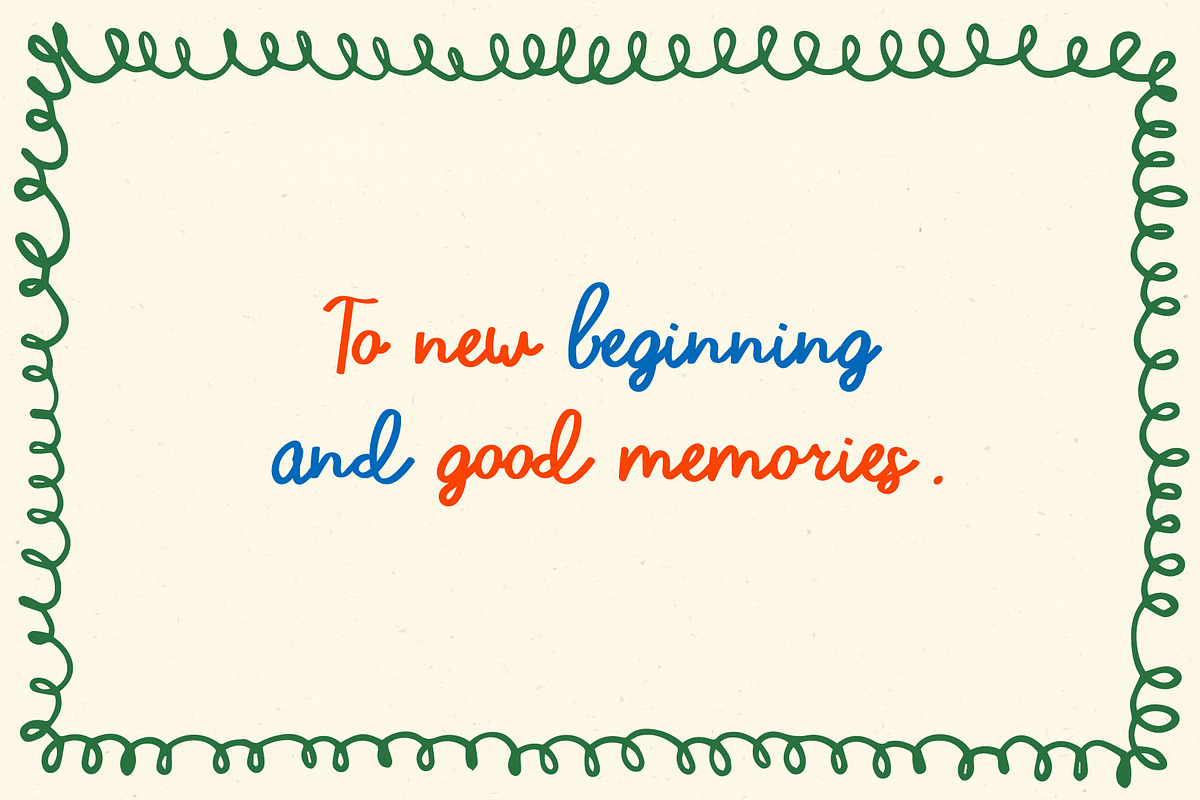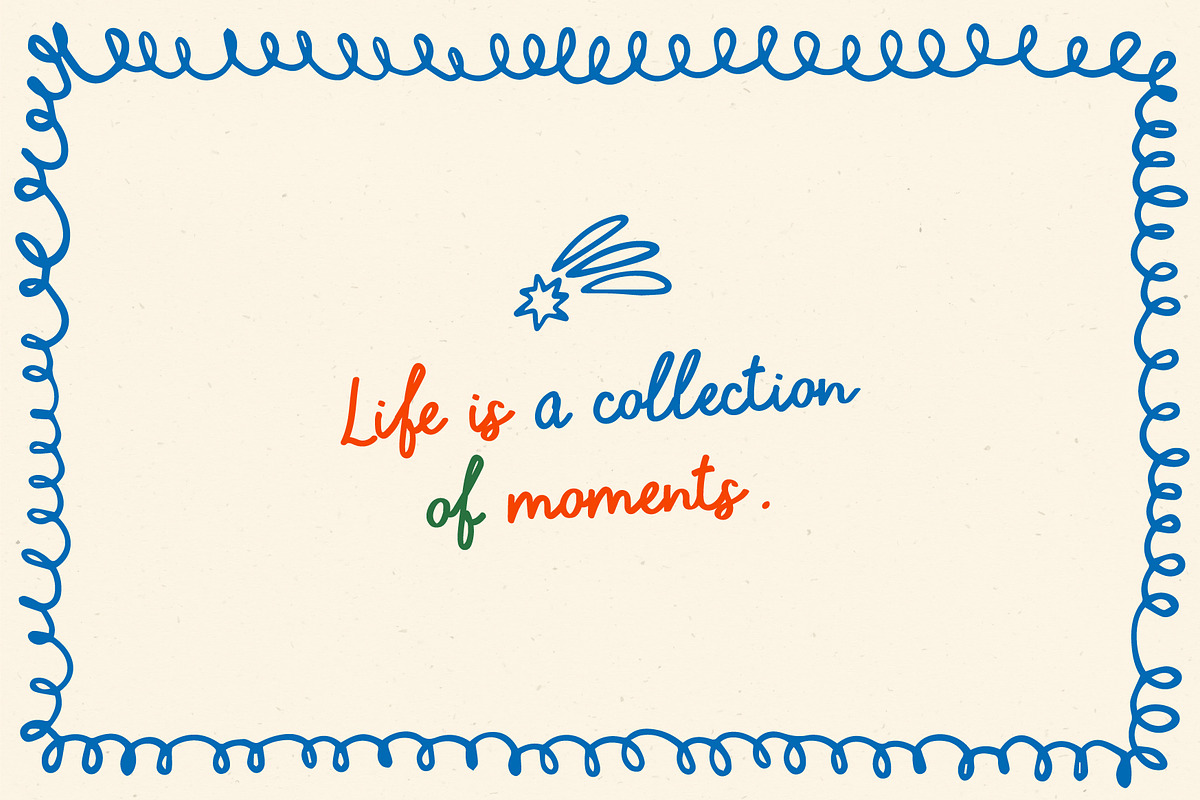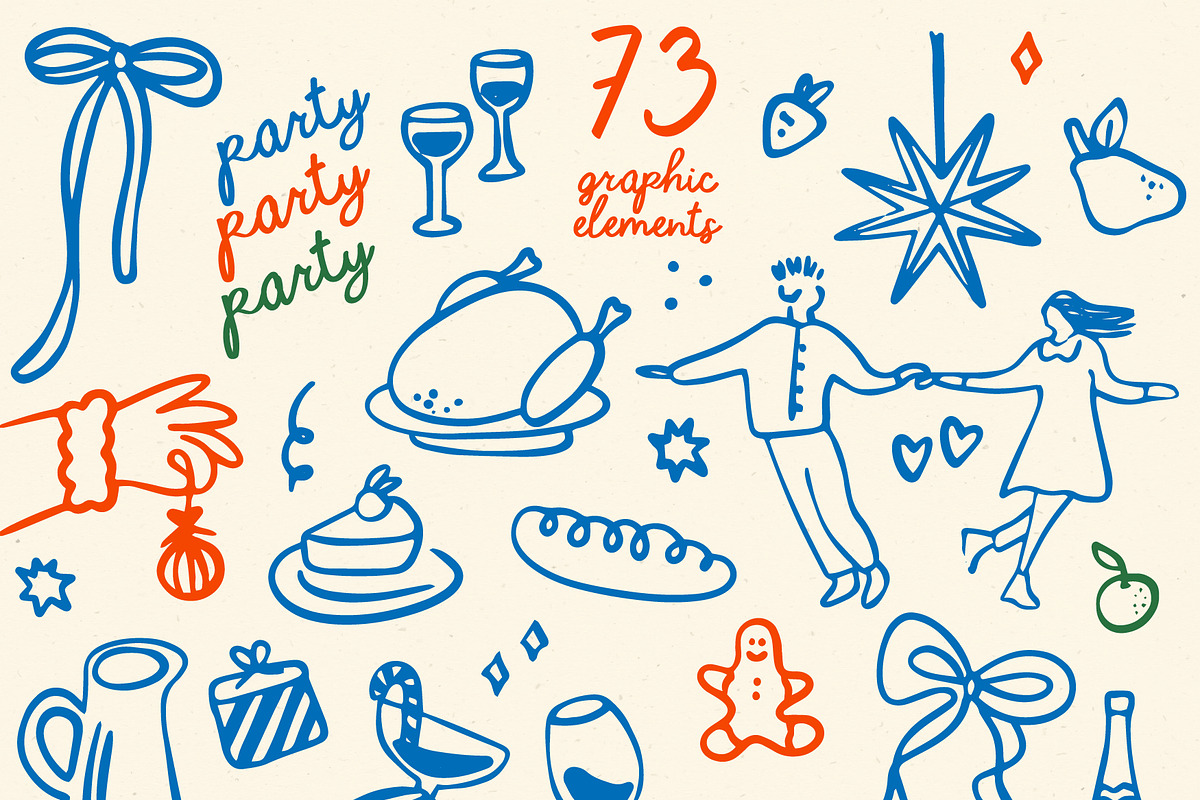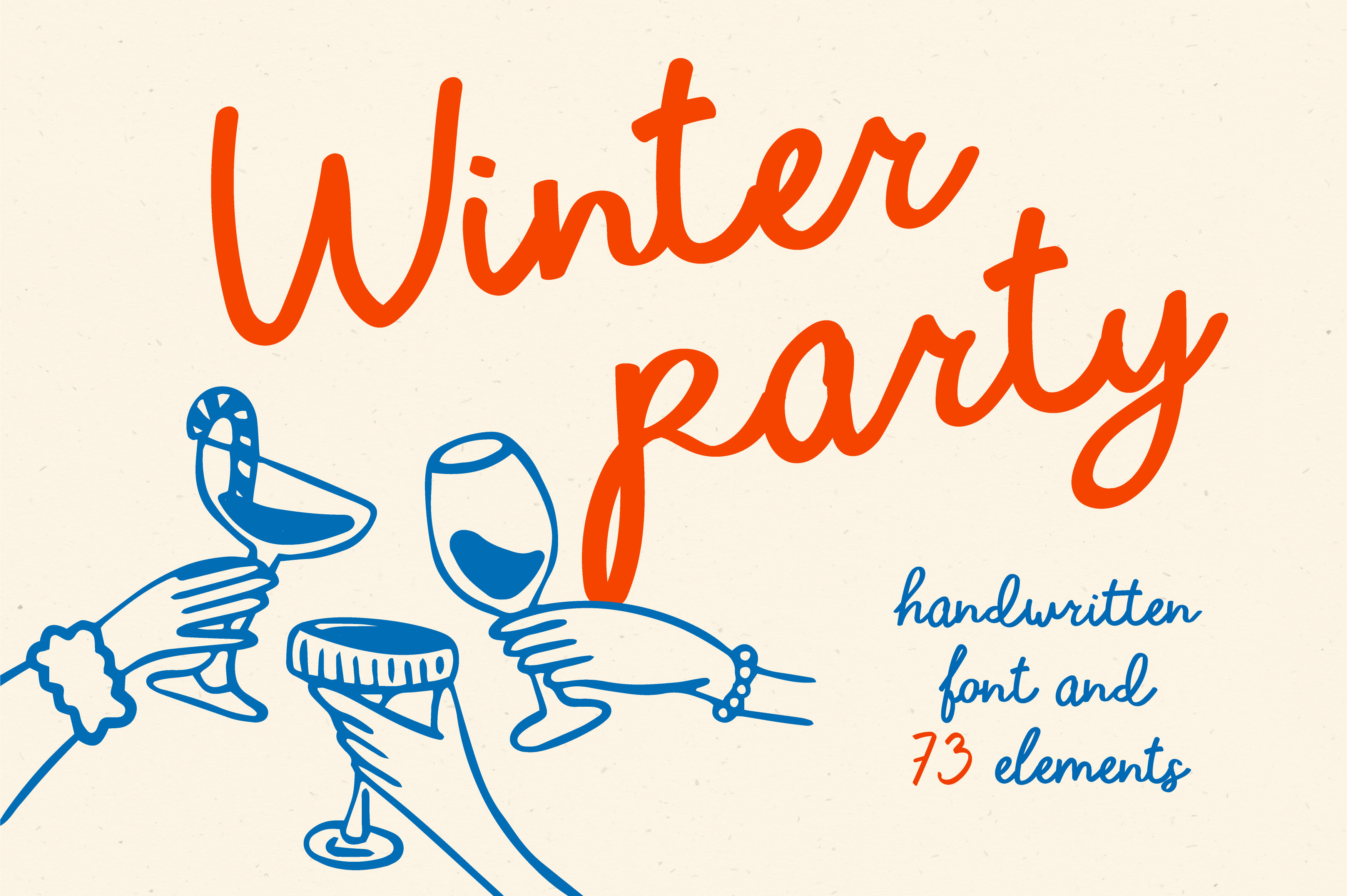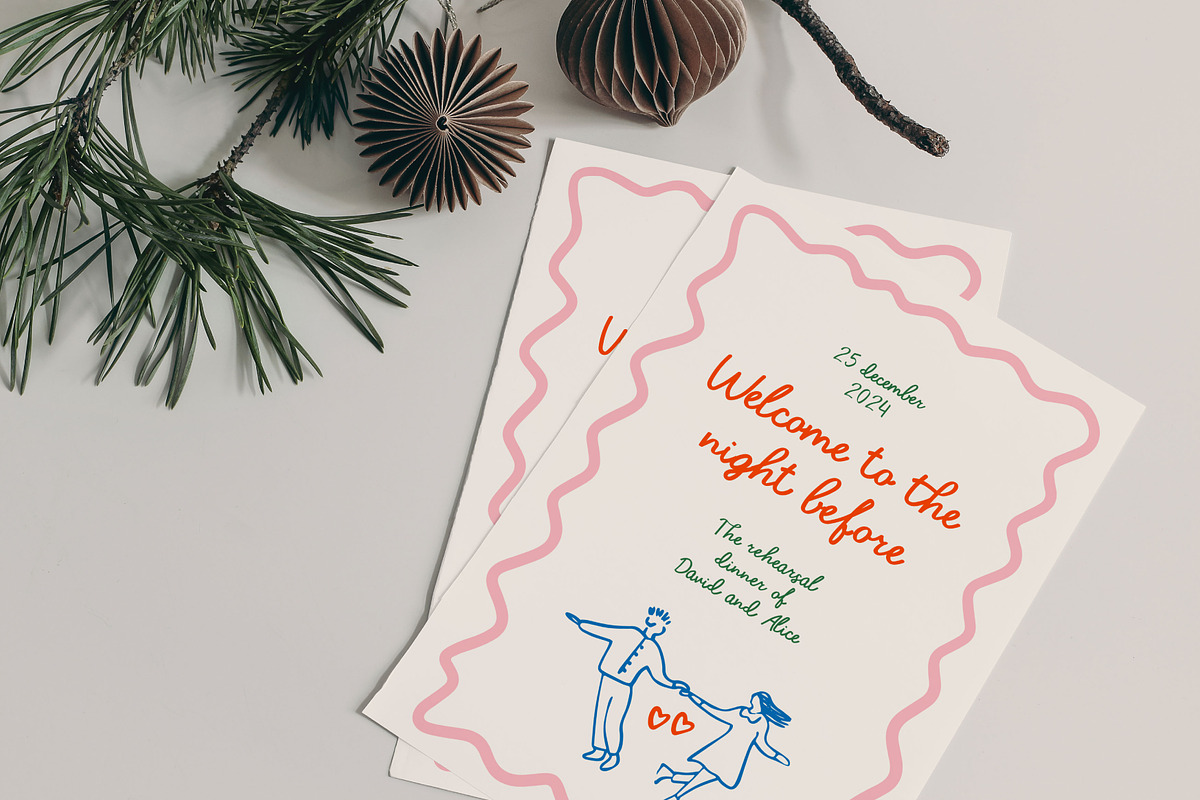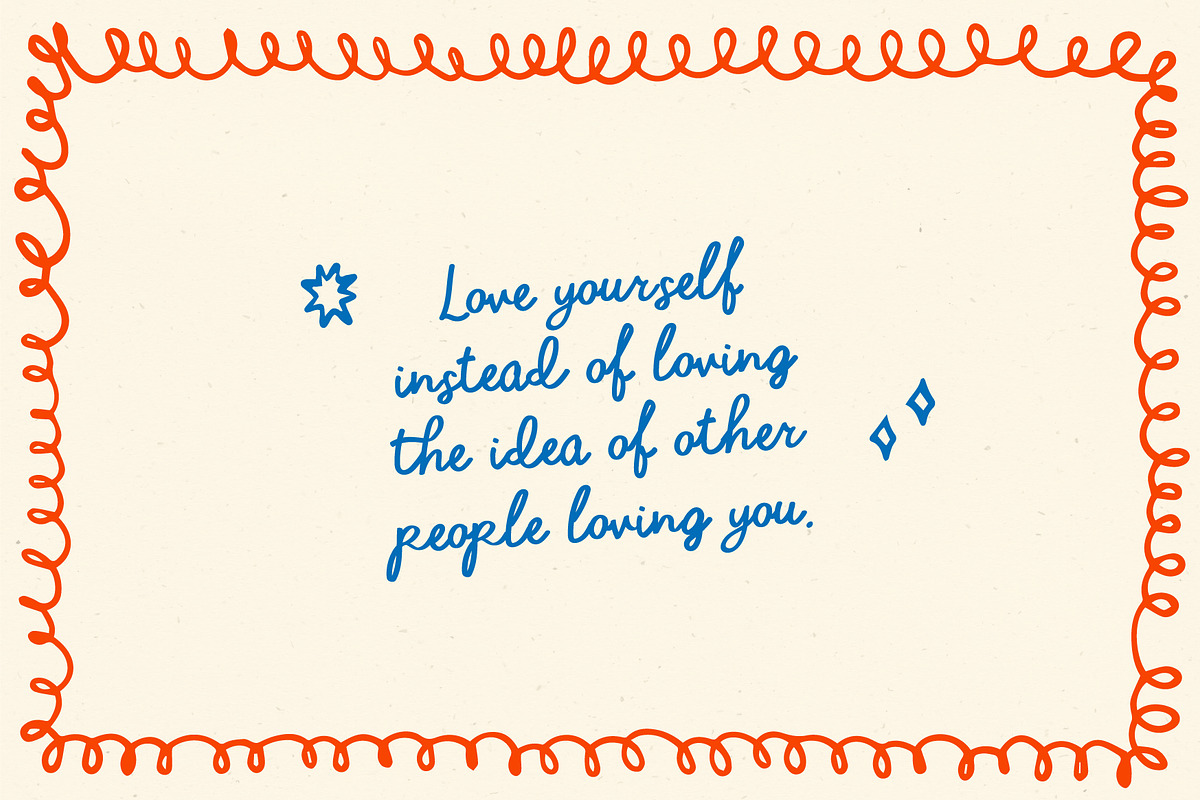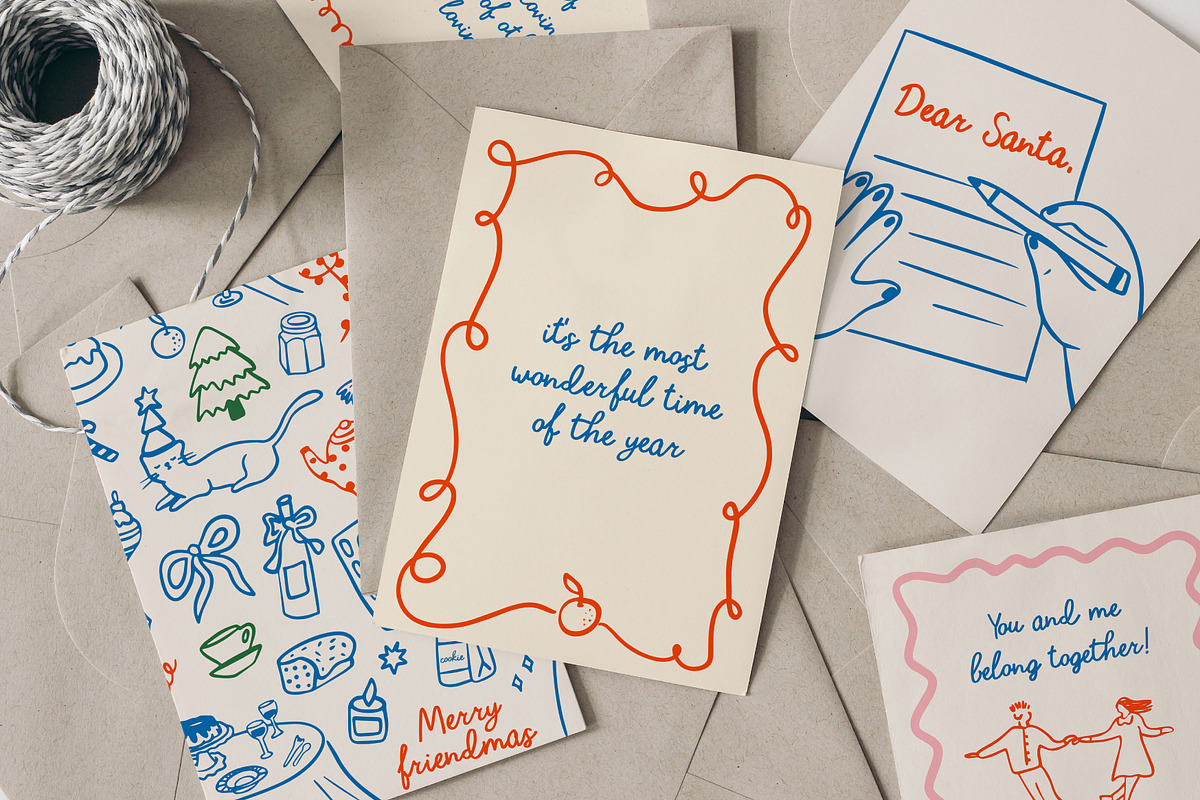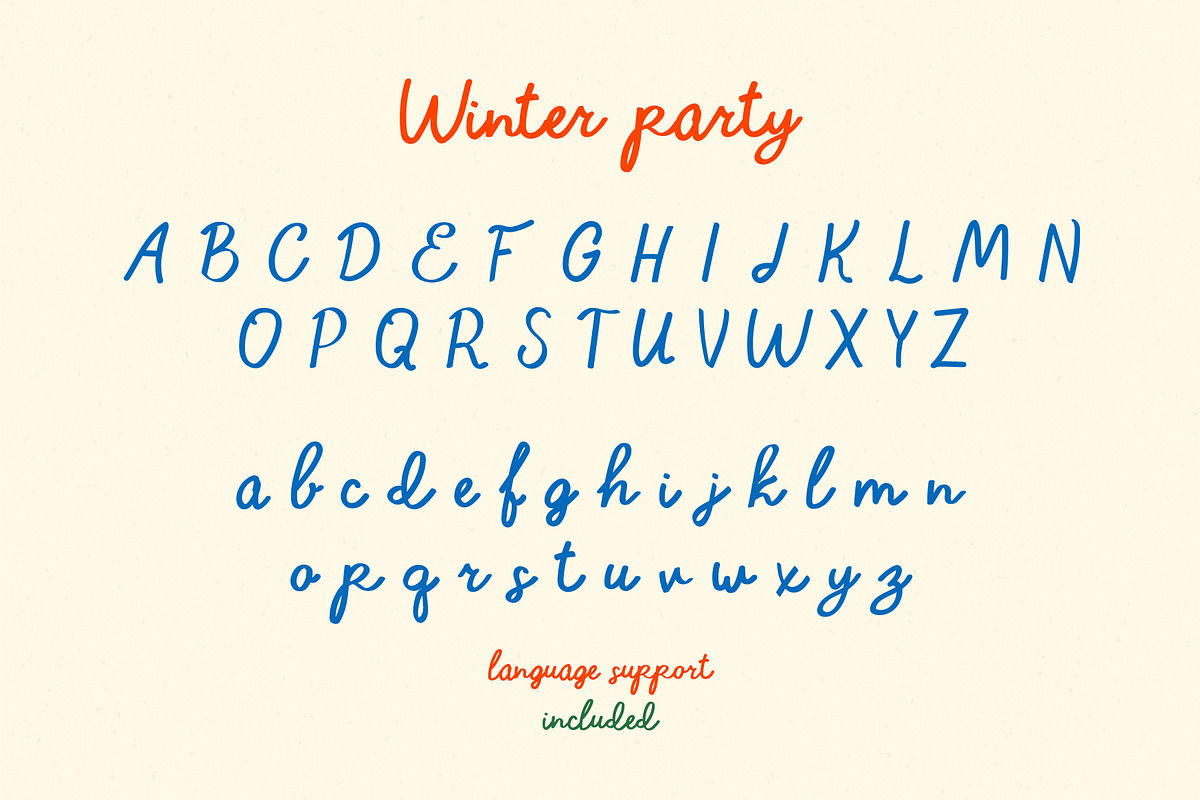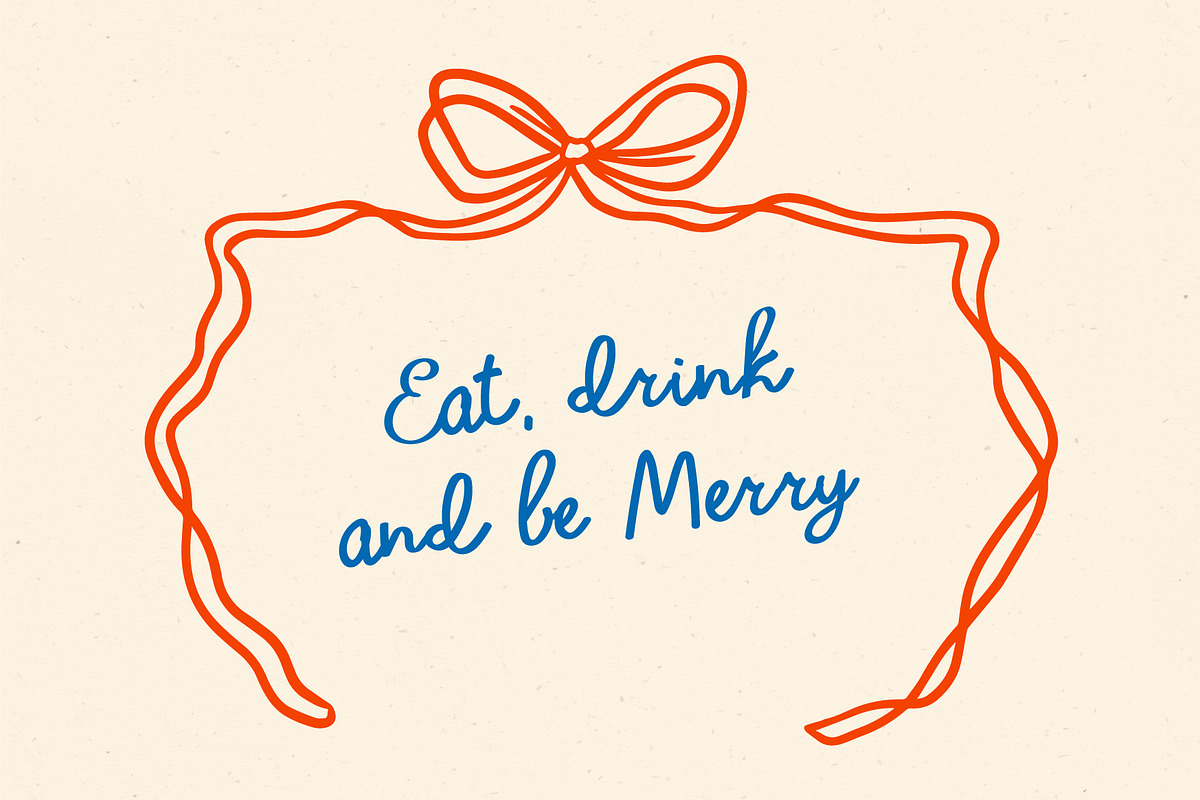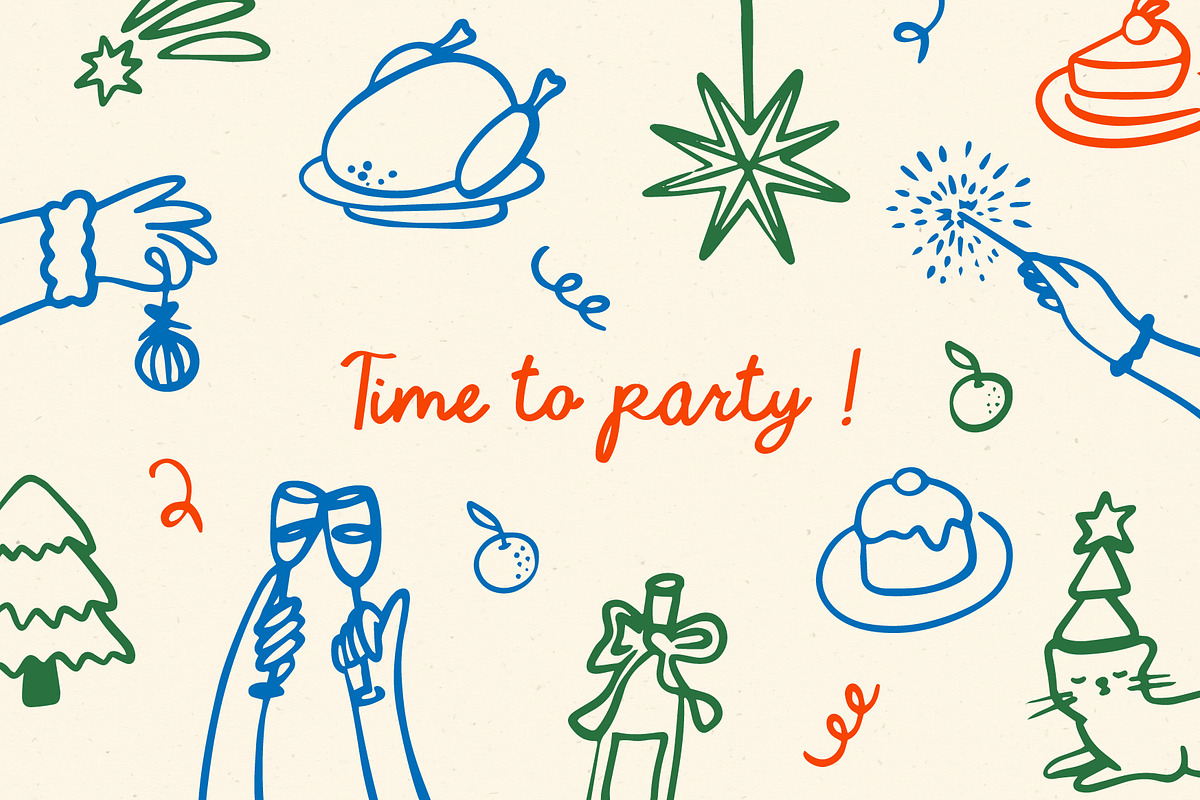
Winter party | Handwritten font
Introduce you my new handwritten font. Winter party includes full set of Uppercase and Lowercase Basic Characters, Numbers, Punctuation and some ligatures. Perfect for quotes, greeting cards, invitations, posters, business cards, presentations and more.